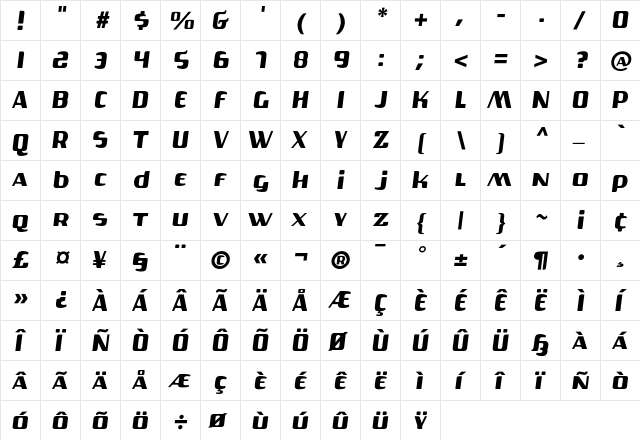
Gas Regular Font Preview
Gas Regular
Gas Regular Font Details
Design Context for Gas Typeface
Gas takes a measured approach to typography — its balanced proportions and neutral character make it a reliable workhorse for both digital and print work.